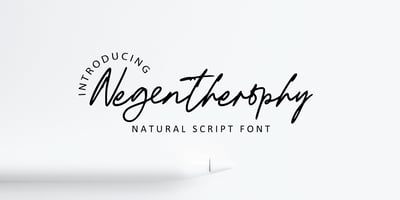
Negentherophy Font Family was designed by Lia Almuknisa and published by Fromletterel. Negentherophy contains 1 styles and family package options. Negentherophy is a natural signature font to beautify your designs with its natural charm, suitable to create gorgeous wedding invitation, beautiful social media post, business card and other beautiful projects. It also contains ligature to add more natural charm.